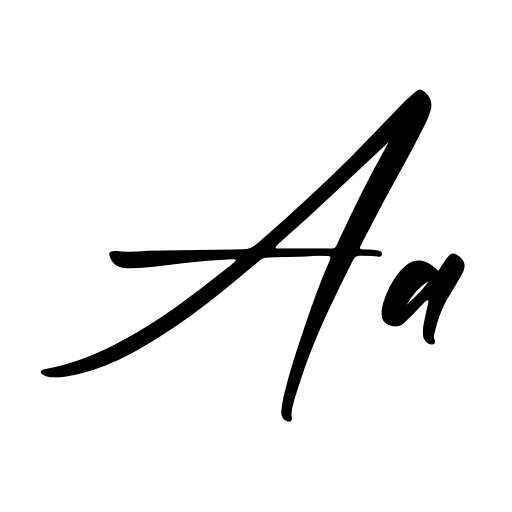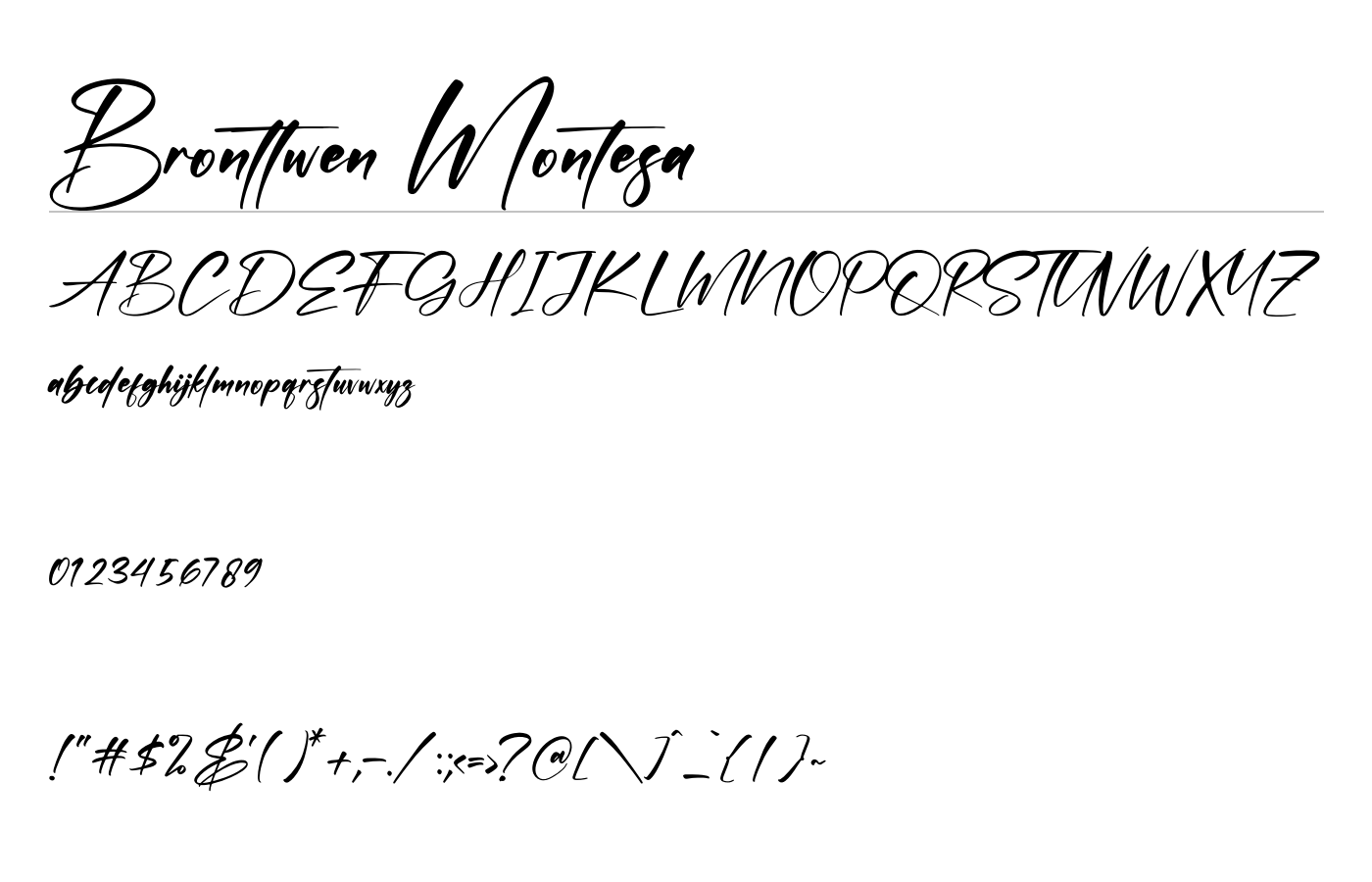
Bronttwen Montesa is a stylish, modern script font featuring fluid, hand-drawn strokes with a lively, casual feel. Its elegant thin and bold contrasts and dynamic letterforms make it perfect for creative branding, fashion, invitations, and eye-catching headlines that want to convey personality and sophistication with a personal touch. This font works well where a chic yet approachable vibe is desired.
Bronttwen Montesa Font
About Bronttwen Montesa Font